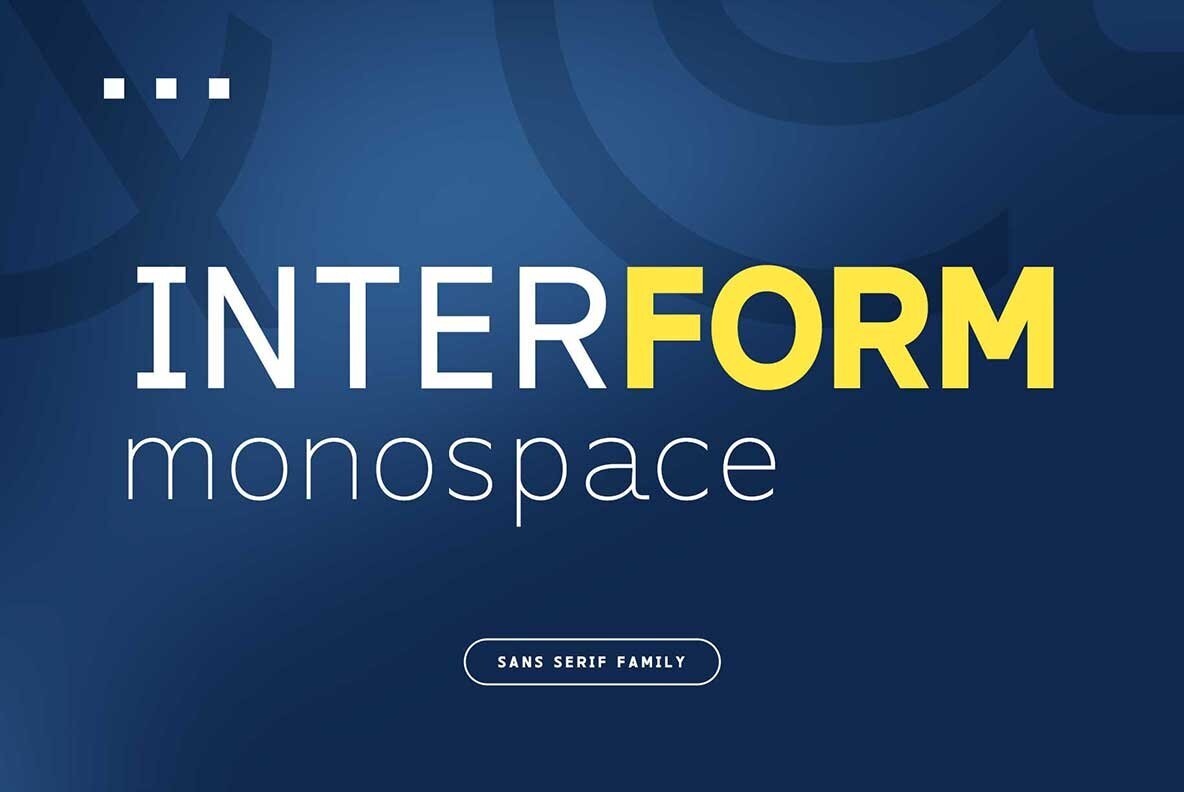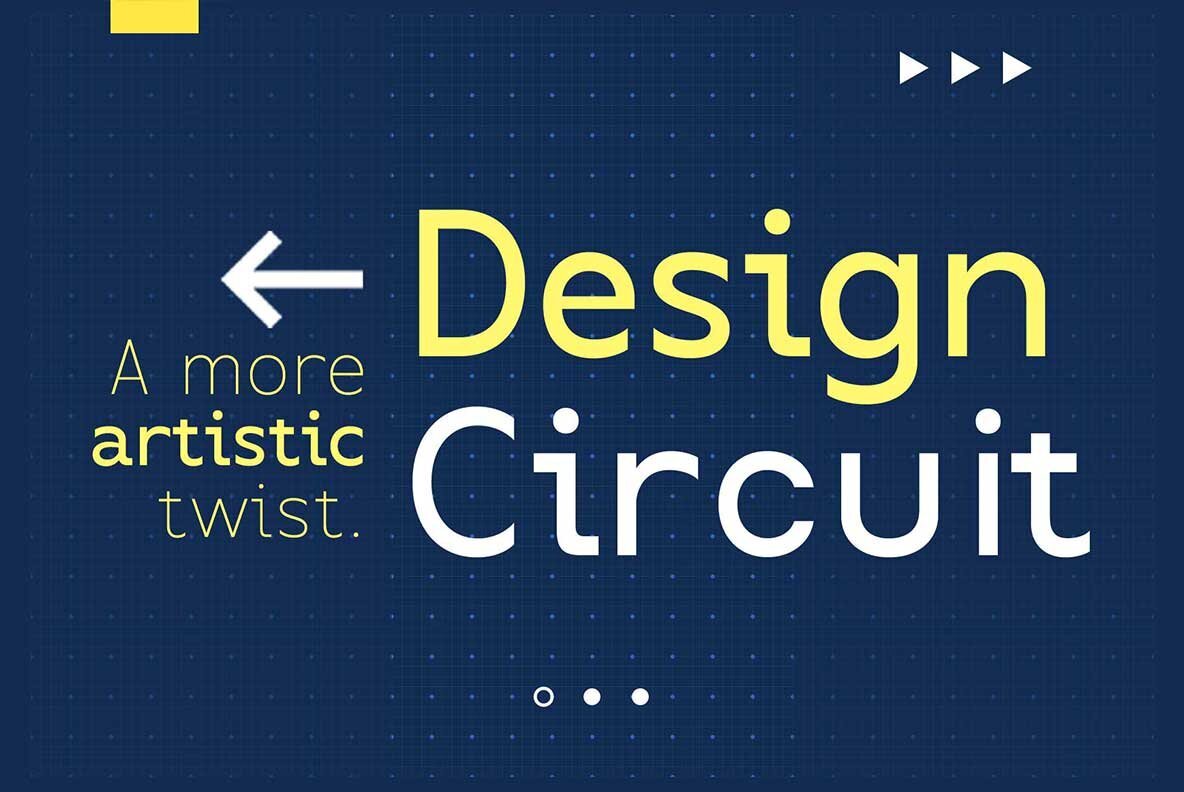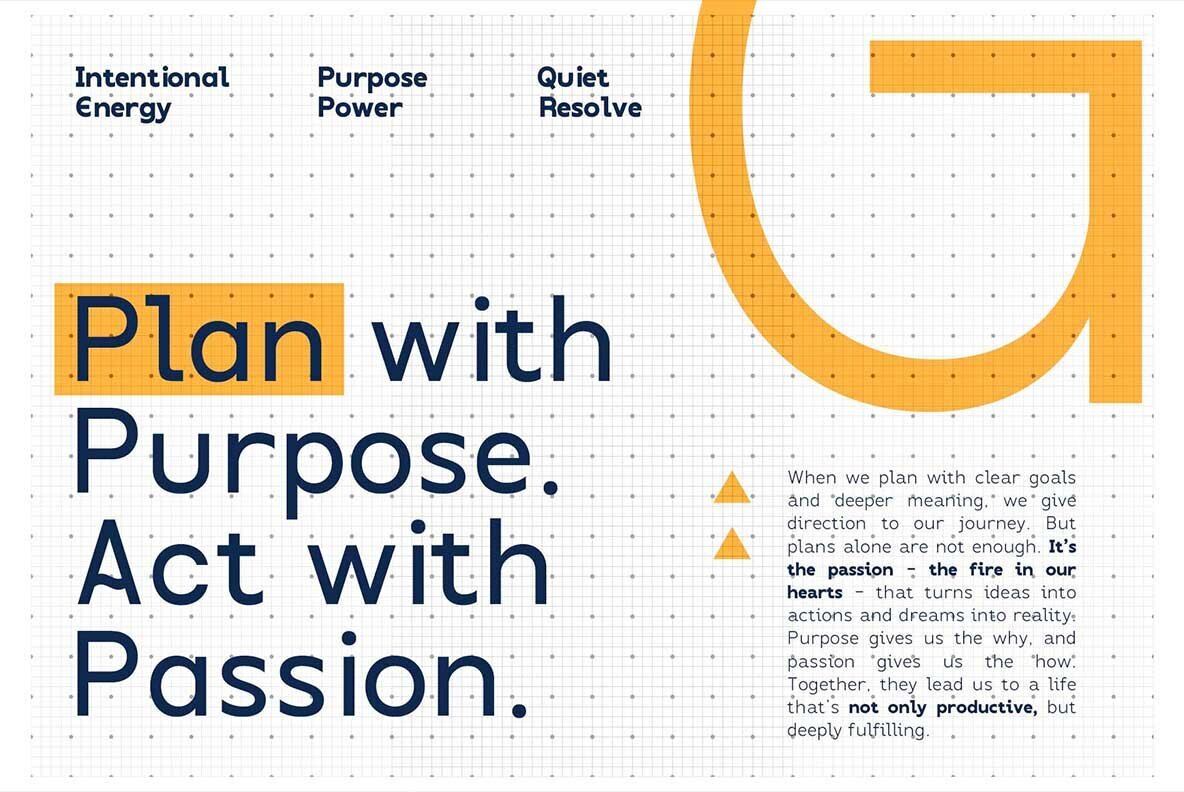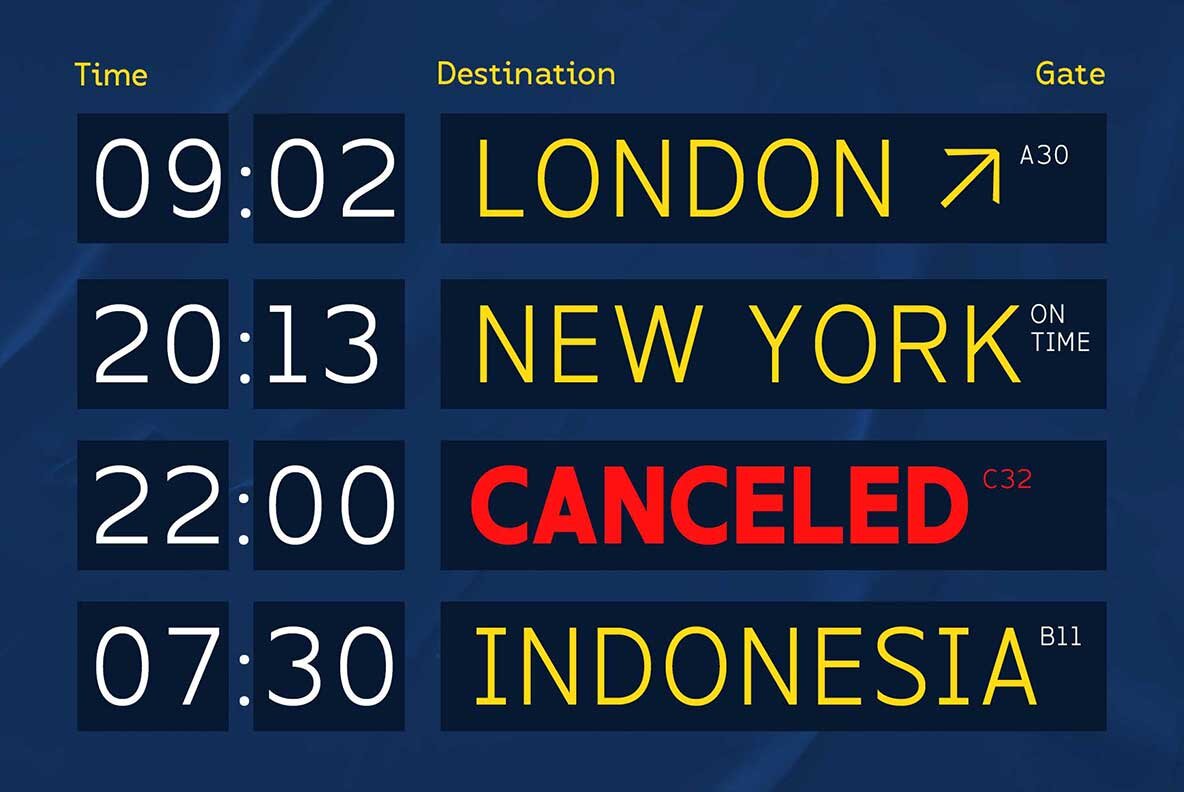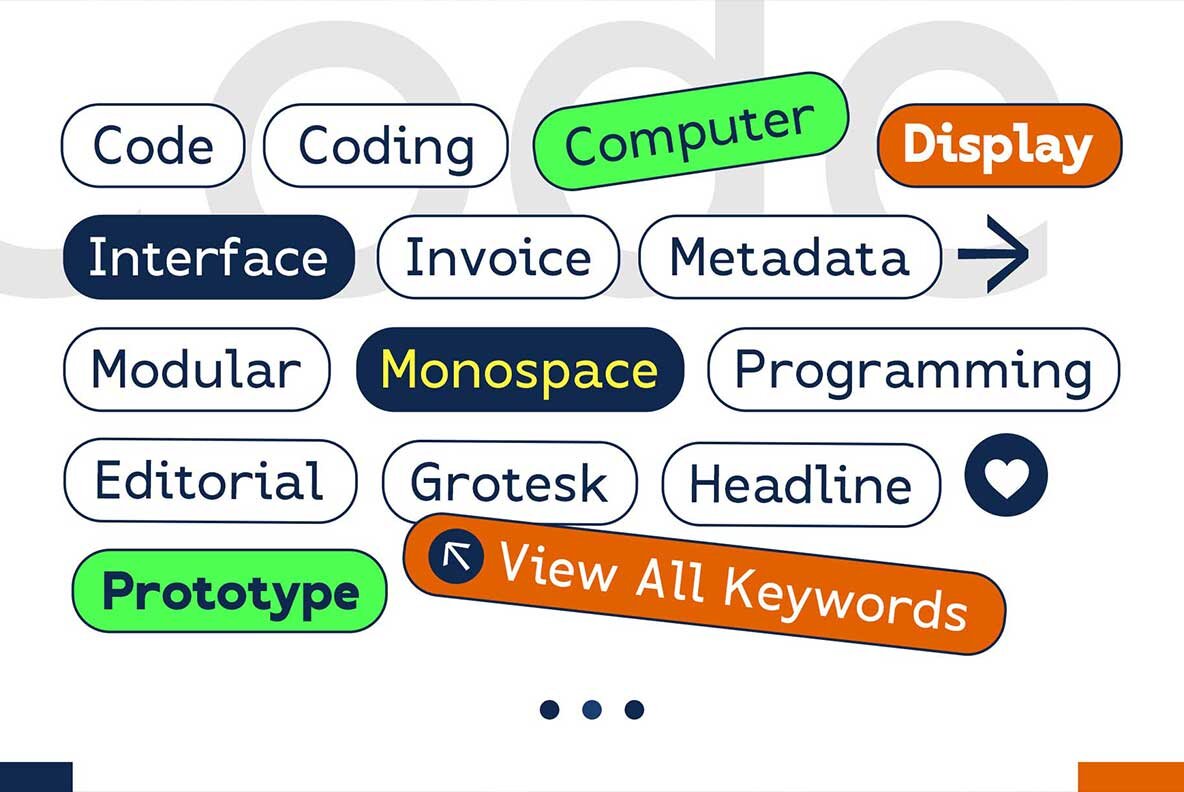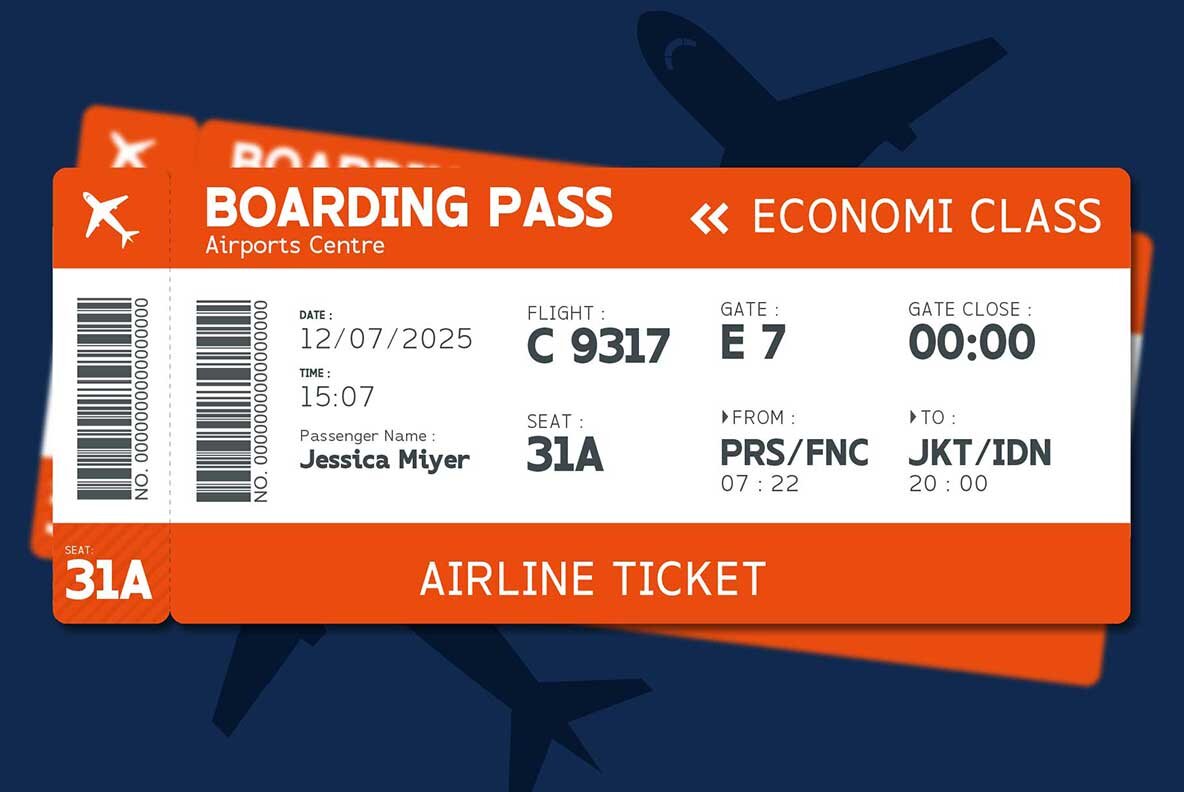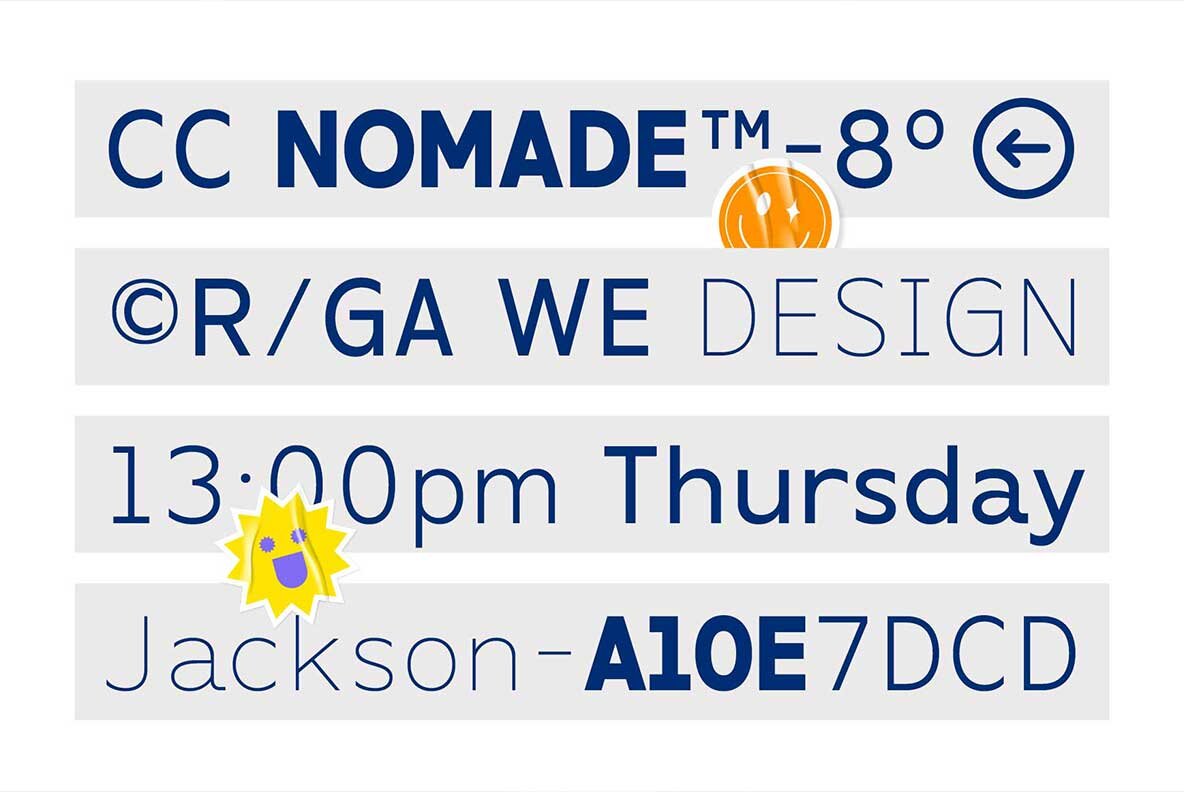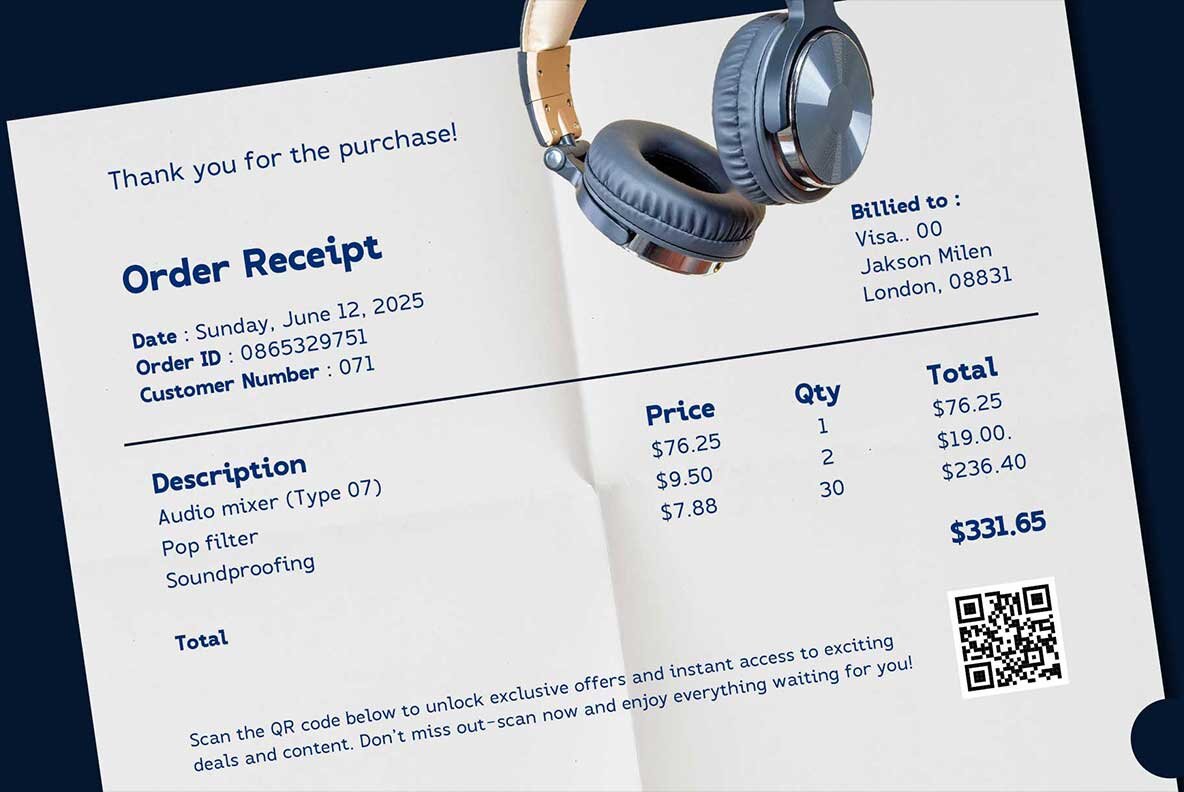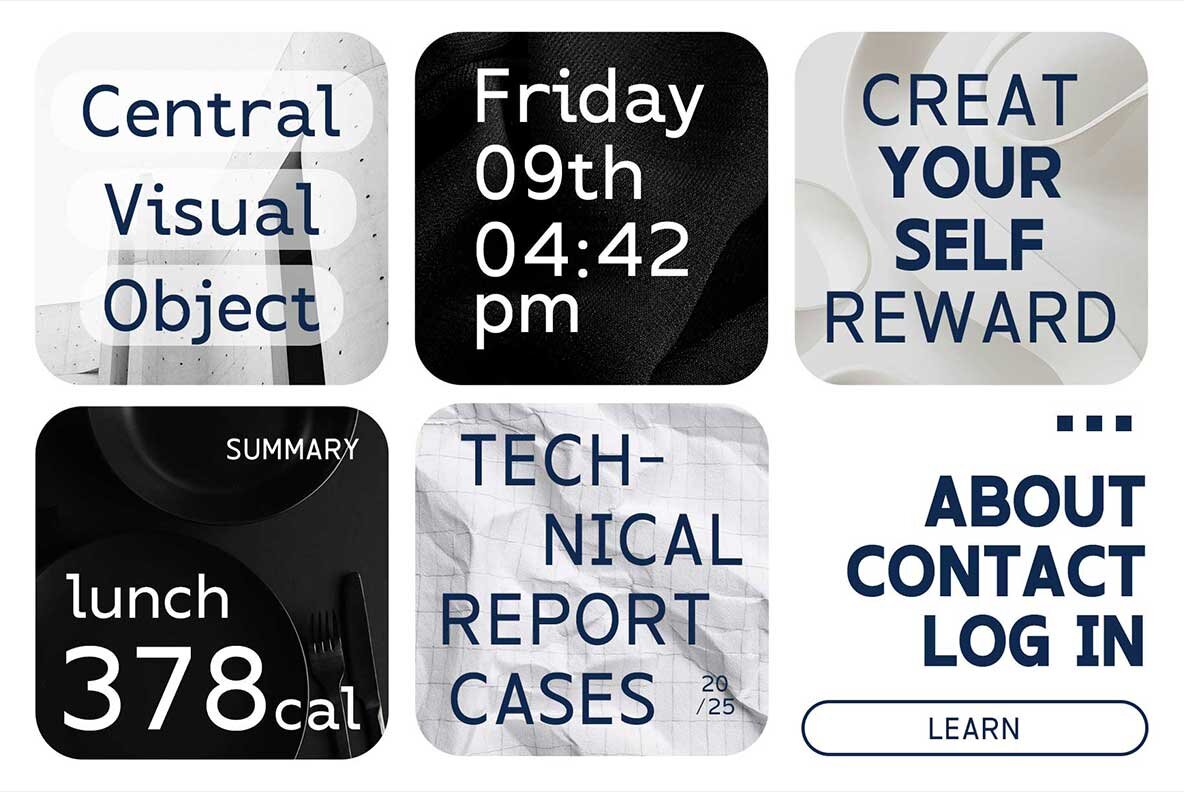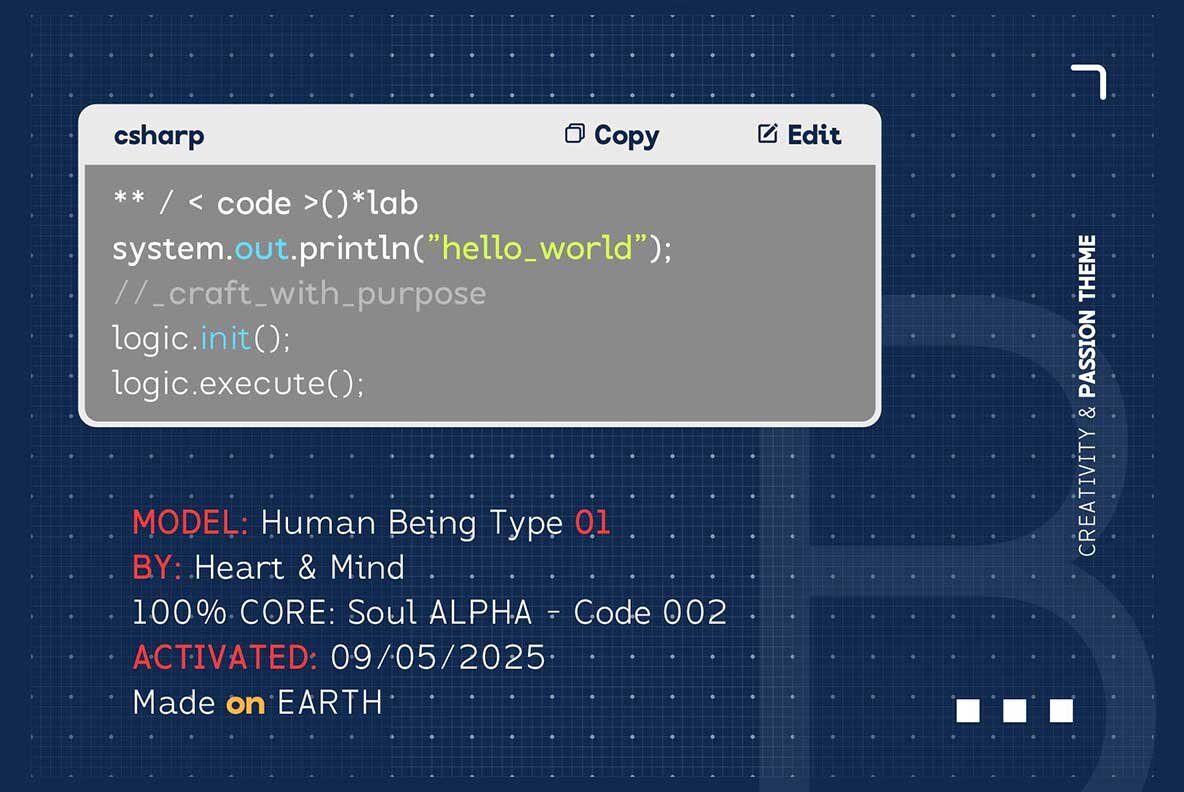
Interform Font
Interform emerges as a modern monospaced typeface, crafted with robust letterforms and a distinct industrial vibe. It maintains clarity at various sizes, making it versatile for numerous applications. Available in five weights—Light, Regular, Medium, SemiBold, and Bold—Interform caters to extensive design requirements. This typeface proves indispensable for digital interfaces, coding projects, labels, and editorial layouts. Despite its zero kerning, Interform’s precisely balanced spacing makes it ideal for headlines, subheadlines, taglines, and body text. It also features stylistic alternates and offers multilingual support.Interform: Monospaced Typeface with Industrial Edge